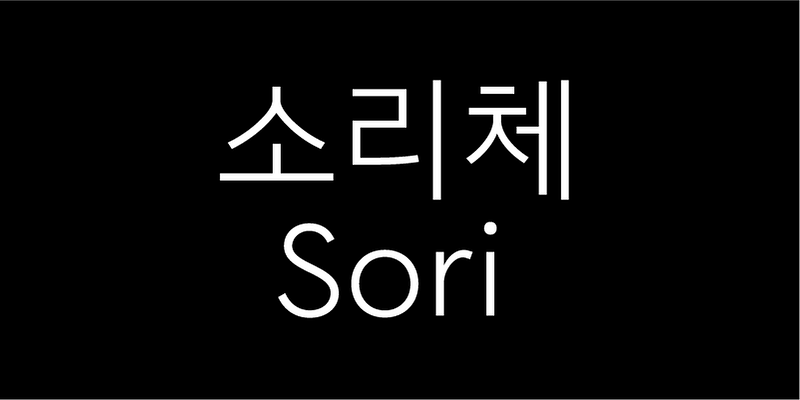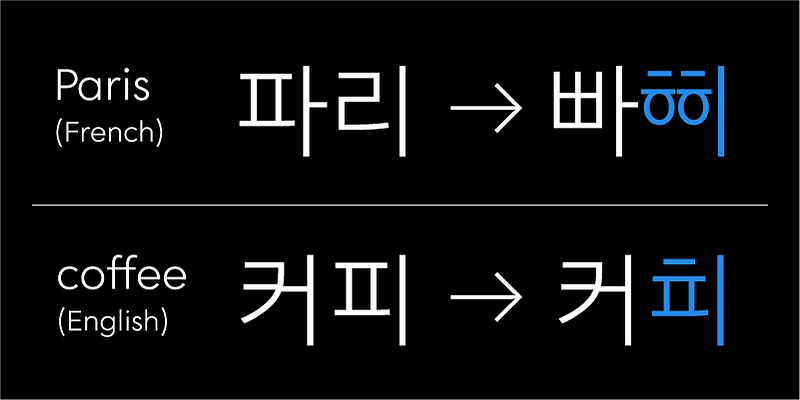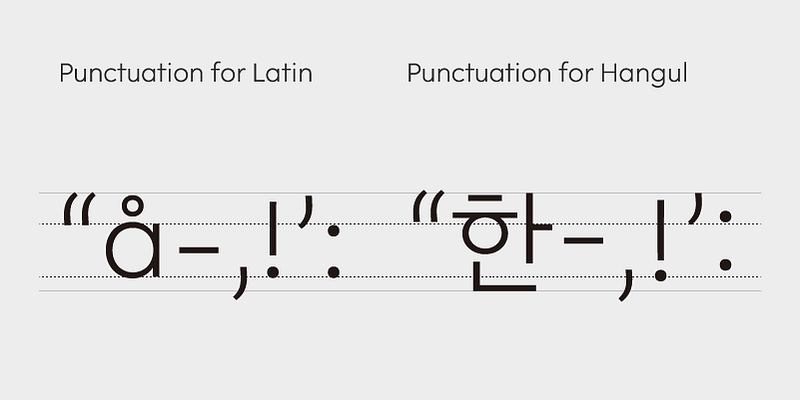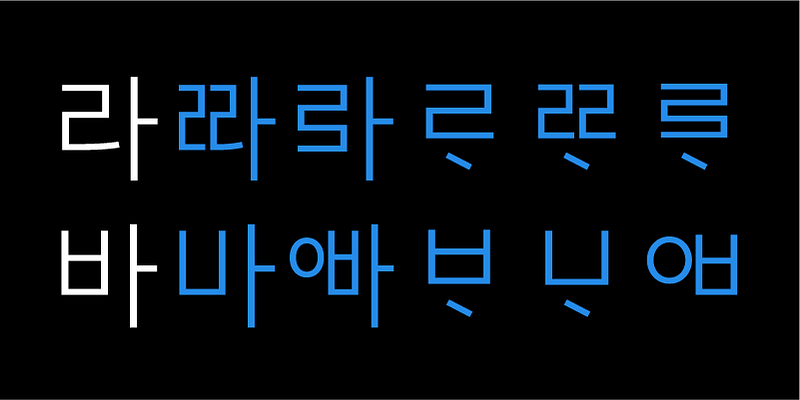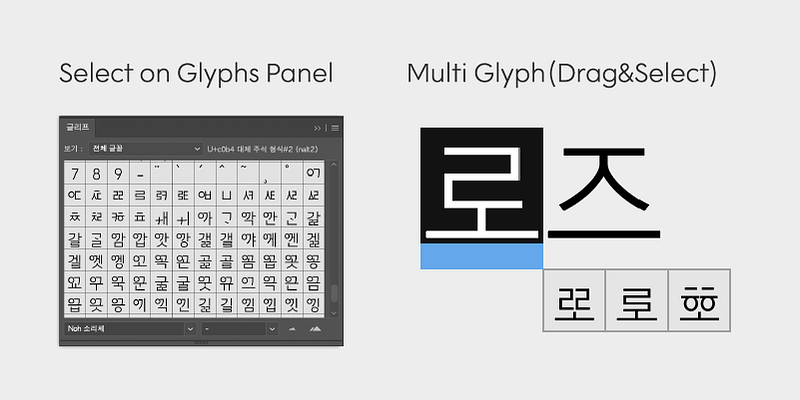
“A new Hangul design project for phonetic transcription of foreign languages absent in Korean”
«Sori» emphasizes vertical and horizontal strokes and perfect circle geometric shapes, as well as adding ‘new Hangul* letters’ to compensate for the lack of foreign pronunciations (f, l, r, z, etc.). Some letters are taken from old Hangul (ㅿㆍ) while others were newly designed based on the principles of Hangul.
«Sori» allows more accurate pronunciation for foreign locations and names suitable for authors, artists or travel books.
«Sori» began in 2005 as Eunyou Noh’s graduate project, and research continued into her graduate thesis Hangul Writing Standards for Japanese Phonetic Writing (MFA, 2008) and was introduced as a font in 2020.
*New Hangul Support (multi glyphs)
«Sori» like other contemporary Hangul fonts can be used on all programs, but the ‘New Hangul for Foreign Pronunciations’ is only available in OpenType support programs (Adobe InDesign, Illustrator, Photoshop). Select New Hangul in the Glyphs panel or access the function in the OpenType multi glyph panel.